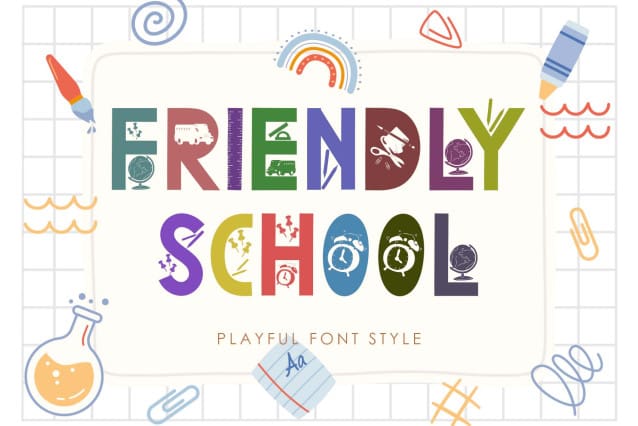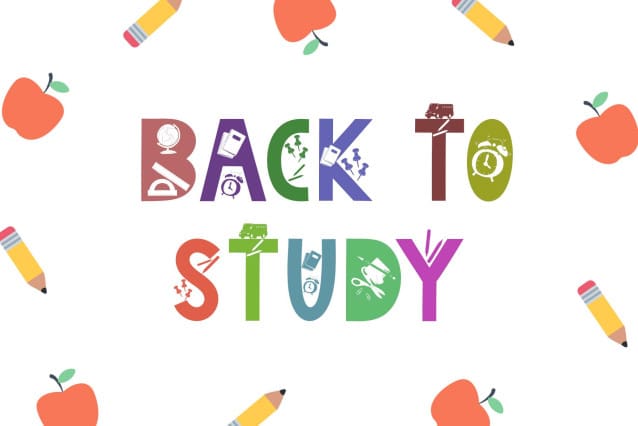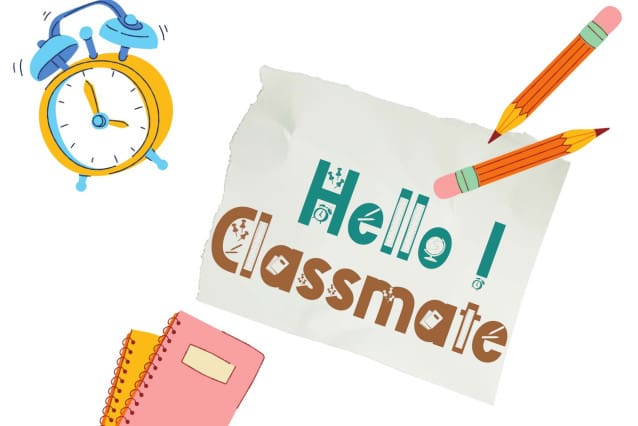
Friendly School Font
Friendly School Font is a unique display font. This font is equipped with uppercase, lowercase, numerals, punctuations and multilingual support. Very suitable for back to school, teacher’s day, Christmas, fall, autumn, Halloween, posters, prints, branding, banners, logos, stickers and others.